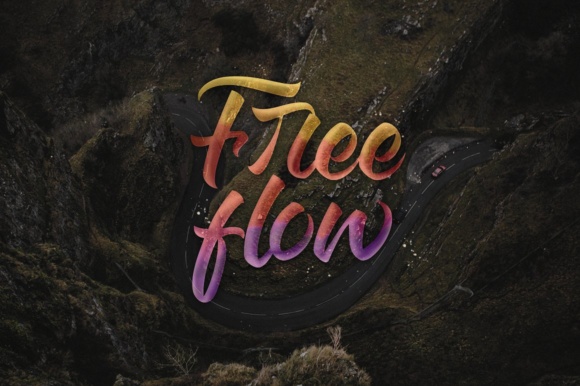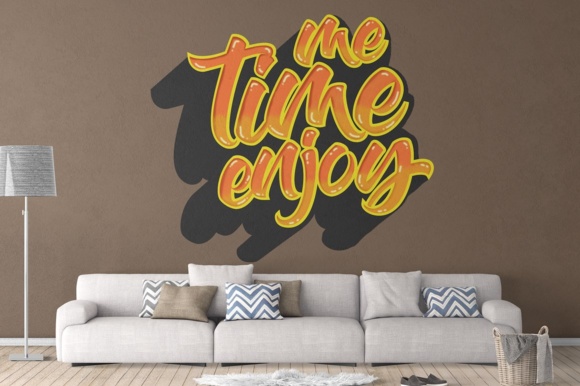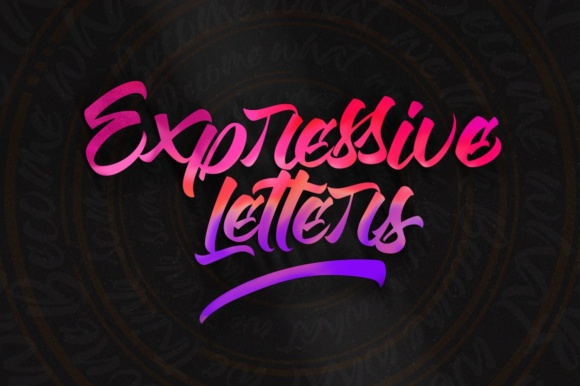
Introduction to Baling Ink Font
The Baling Ink is an expressive brush typeface.
It has a striking look which is perfect for every design that needs to stand out .
Key Features of Baling Ink Font